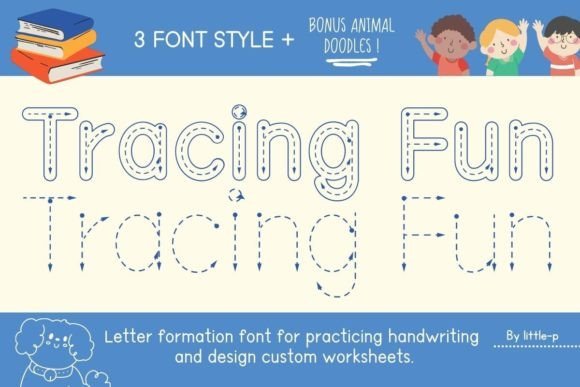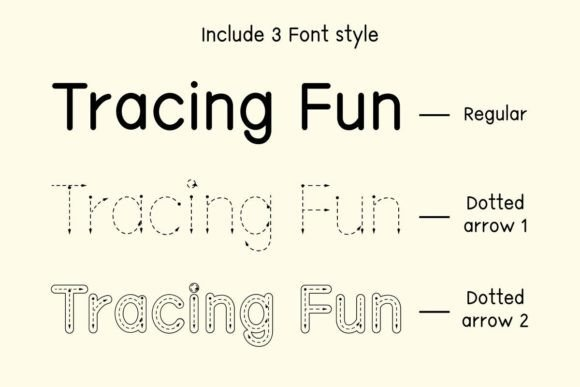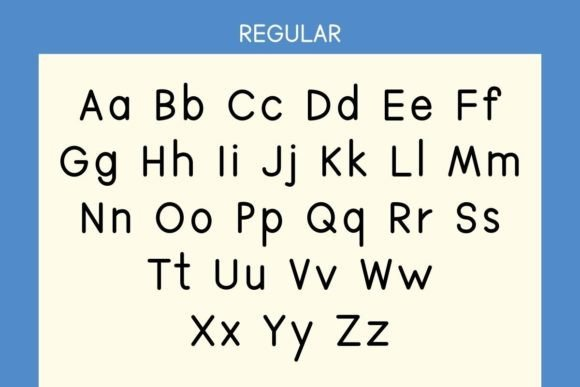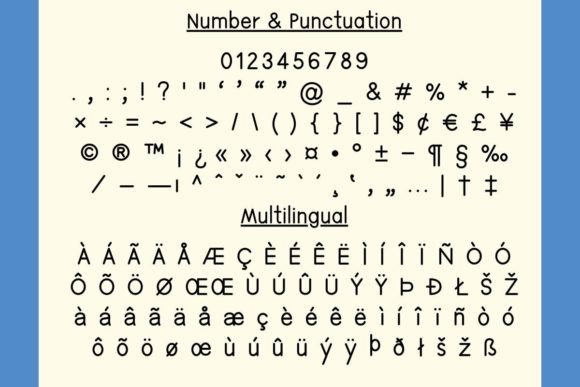
Tracing Fun Font
Download Tracing Fun, an instructional English font designed to help preschoolers and young learners develop proper alphabet writing skills (1.21 MB). TTF & OTF formats with previews. Includes three font styles plus delightful doodle animal illustrations that make learning engaging and effective.
Tracing Fun is a thoughtfully designed educational font that transforms alphabet practice into an enjoyable learning adventure. Created specifically for preschoolers and early learners, this instructional font guides young students in developing proper letter formation while keeping them engaged with charming animal doodles that bring the alphabet to life.
Three Instructional Styles:
• Tracing Font: Clear, properly formed letters with guiding lines for correct stroke practice
• Dotted Font: Perfect for tracing exercises with numbered stroke directions
• Guided Practice Font: Additional styles for progressive skill development
Doodle Animal Alphabet:
• Each letter accompanied by an adorable animal illustration
• Visual connections between letters and animal names
• Engaging images that capture children’s attention
• Makes learning memorable and fun
• Preschool Worksheets: Create effective handwriting practice materials
• Kindergarten Activities: Develop fine motor skills through tracing
• Homeschool Resources: Support early literacy development at home
• Classroom Materials: Teachers can customize practice sheets
• Learning Apps: Educational digital content
• Workbooks: Consistent, properly formed letter models
• Practice Books: Create personalized learning materials
Key Benefits for Educators & Parents:
• Proper Formation: Guides correct stroke order and direction
• Engaging Design: Animal doodles maintain children’s interest
• Flexible Use: Three styles for progressive skill development
• Time-Saving: Create customized materials instantly
• Effective Learning: Combines visual, tactile, and cognitive approaches
How It Works:
Simply type any letter, and Tracing Fun displays it in the selected style—with clear guidelines for tracing, numbered strokes for correct order, or dotted lines for practice. The accompanying animal doodles appear alongside, creating visual associations that reinforce letter recognition and make practice sessions something children look forward to.
Key Features of Tracing Fun:
• Three instructional font styles for progressive learning
• Doodle animal alphabet for engaging visual associations
• Proper letter formation with stroke guidance
• Perfect for preschoolers and kindergarteners
• Preschool and kindergarten teachers
• Homeschooling parents
• Early childhood educators
• Childcare centers and daycares
• Occupational therapists
• Educational content creators
• Workbook and worksheet designers
• Anyone helping children learn to write
Introducing “Tracing Fun” the educational font designed to enhance alphabet writing skills for kindergarten students. Perfect for practicing proper letter formation, “Tracing Fun” includes three font styles: Regular, Outline Dotted with Arrow, and Dotted with Arrow. With the added bonus of Animal Alphabet Doodle, this font not only aids in teaching but also boosts children’s writing development through engaging visuals. “Tracing Fun” is a valuable tool for teachers, enabling them to create effective teaching materials that make learning enjoyable and effective. Embrace the power of “Tracing Fun” to guide young learners in developing essential writing skills while they explore the fascinating world of letters through playful animal doodles.